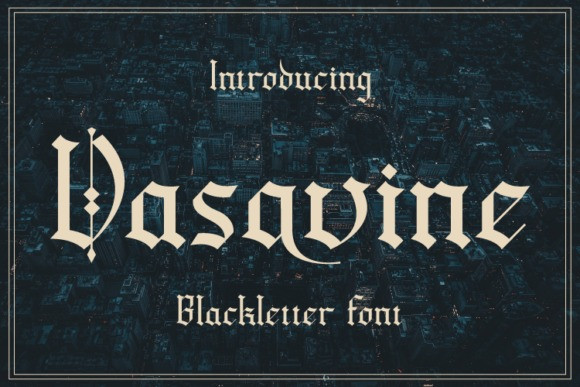
Vasavine Font
Vasavine Blackletter font. Its elegant and cool look makes it the perfect choice for logos, branding, invitations, stationery, wedding designs, social media posts, and so much more. Don’t hesitate to add it to your creative projects, and be amazed by its fantastic results! This font is PUA encoded, so you can easily access all the glyphs!